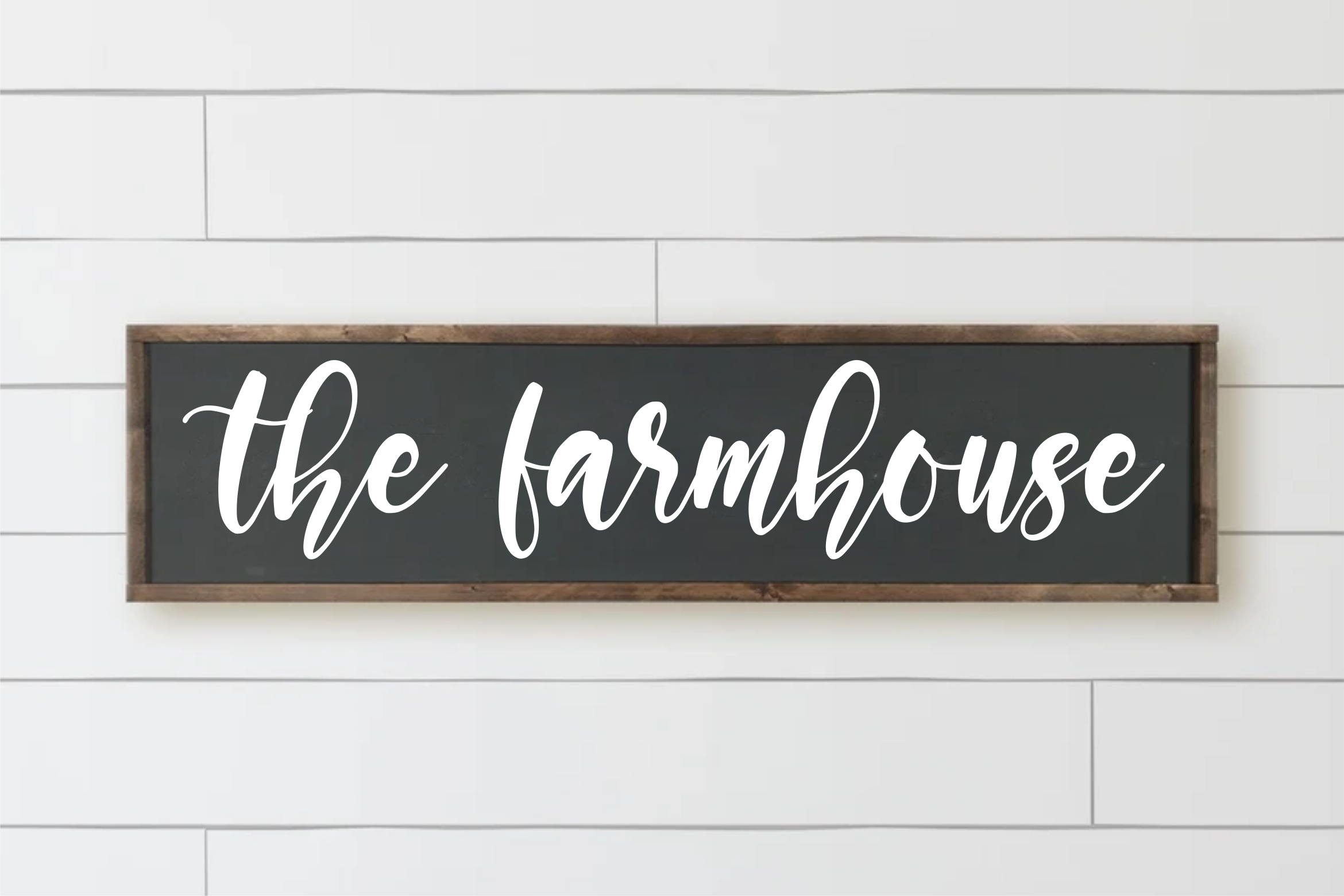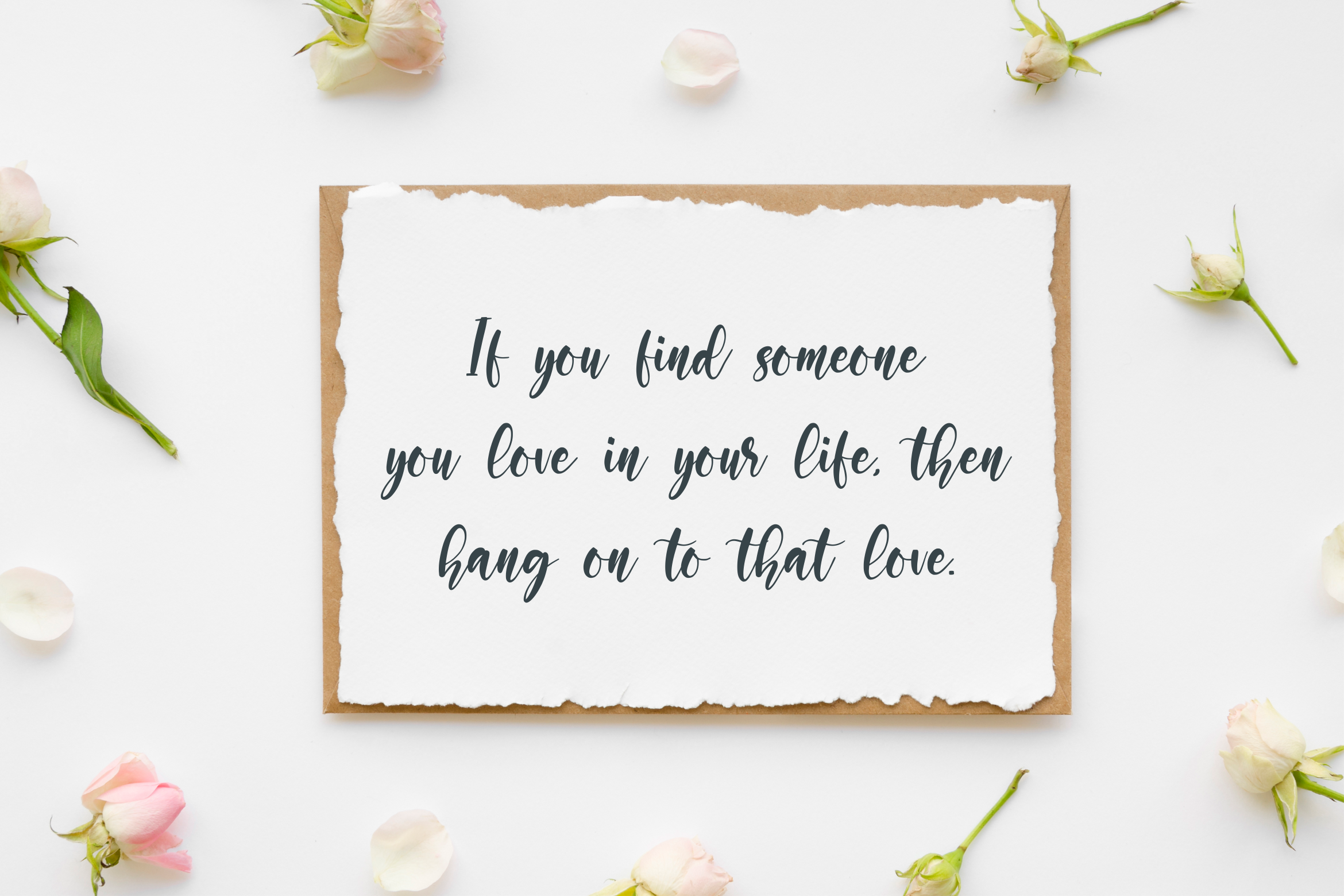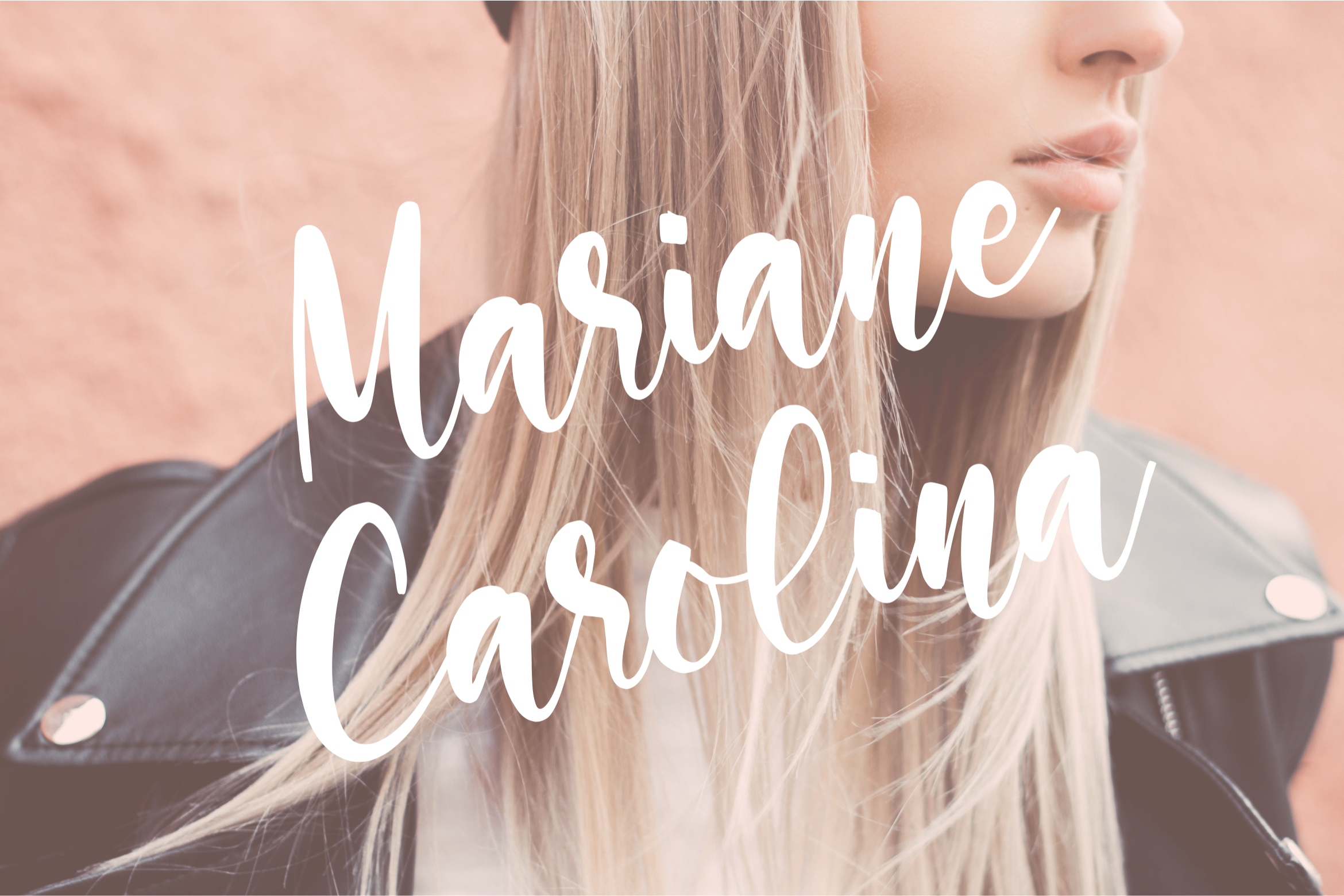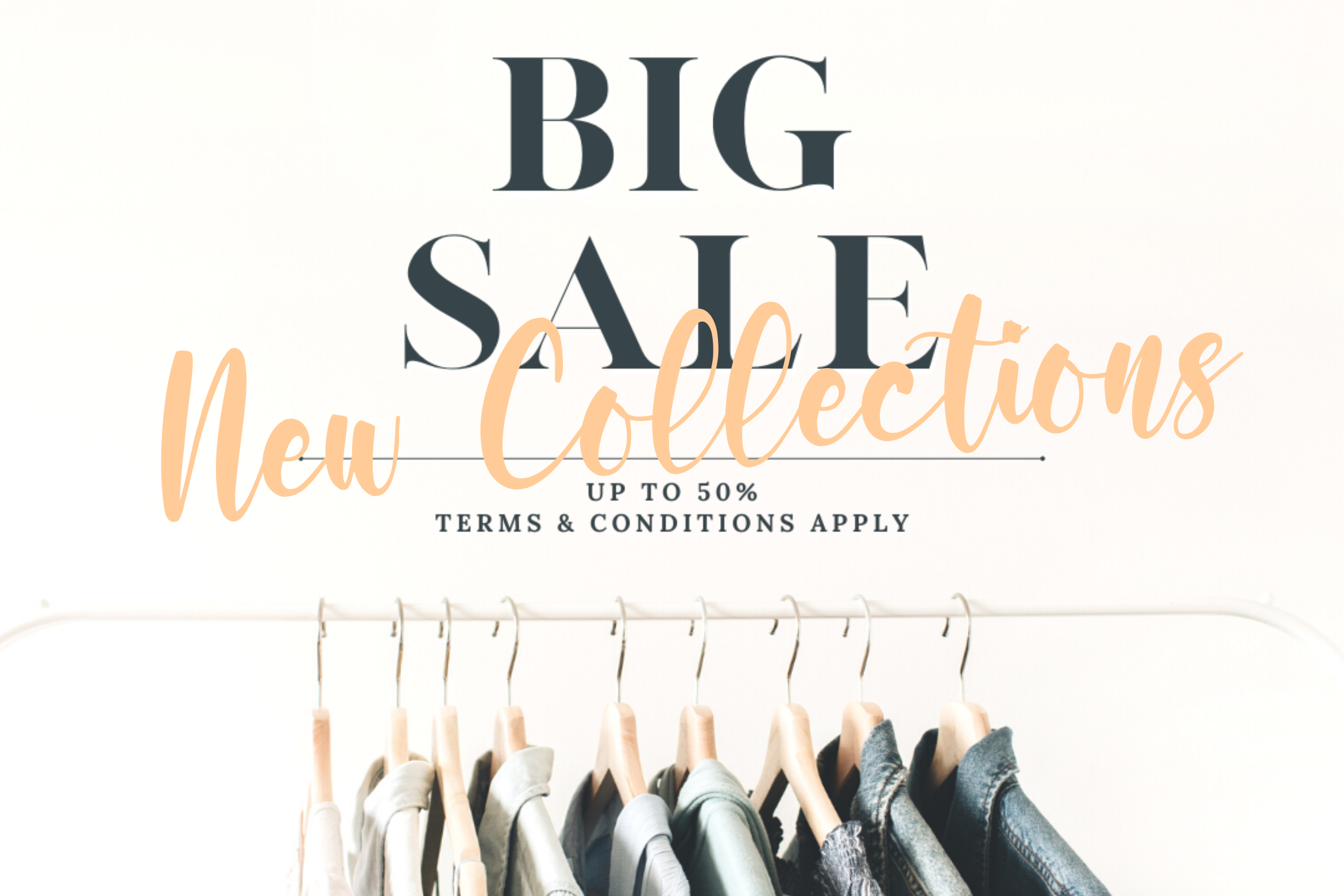
Daisilica Font
Daisilica Script Font
This is a Modern Handwritten Font. Daisilica is perfect for product packaging, branding project, megazine, social media, wedding, or just used to express words above the background.